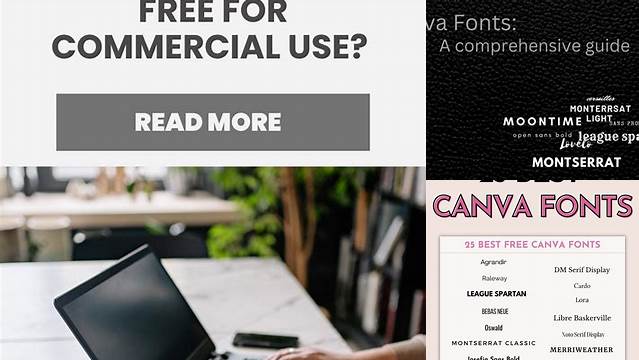
Best Free Canva Fonts: A 2024 Guide
Are you looking for Canva fonts free to use? Well, you've come to the right place! Canva is a fantastic platform for creating stunning visuals, whether it's for social media, presentations, or marketing materials. One of the key elements in making your designs pop is choosing the right fonts. Luckily, Canva offers a vast library of fonts, many of which are available for free. In this guide, we'll dive deep into the world of free Canva fonts, exploring different styles, how to use them effectively, and some hidden gems you might not know about. So, let's get started and unleash your creativity with some amazing typefaces!
Understanding Canva's Font Library
Canva's font library is like a treasure trove, filled with options to suit every design need. It includes a mix of free and premium fonts. The free fonts are readily available to all users, regardless of whether you have a Canva Pro subscription or are using the free version. These Canva free fonts are perfect for anyone just starting out, or for those who want to create professional-looking designs without spending extra money. The library is categorized, making it easier to find what you're looking for, whether it's a sleek sans-serif, an elegant serif, or a playful script font.
Top Free Font Categories in Canva
Let's break down some of the top free font categories available in Canva to help you find the perfect typeface for your projects. Understanding these categories can make your design process much smoother. These free Canva fonts are a great starting point for any project.
Serif fonts are characterized by the small decorative strokes at the end of each letter. They often convey a sense of tradition, authority, and elegance. In Canva, some popular free serif fonts include:
- Lora: A well-balanced serif with a contemporary feel, perfect for body text and headlines.
- Playfair Display: A high-contrast serif that exudes sophistication and is ideal for titles and headings.
- Arvo: A slab-serif font that's clean and readable, making it suitable for both print and digital designs.
These free Canva fonts are excellent choices if you're aiming for a classic or formal look in your designs. Serif fonts are often used in publishing, branding, and websites to create a sense of trust and reliability. When using serif fonts, consider pairing them with a sans-serif font for a balanced and visually appealing design.
Sans-serif fonts, on the other hand, lack the decorative strokes found in serif fonts. They tend to appear more modern, clean, and minimalist. Canva offers a wide range of free sans-serif fonts, such as:
- Open Sans: A versatile and highly readable font that works well in various contexts, from websites to print materials.
- Lato: A sleek and modern sans-serif that's both friendly and professional.
- Roboto: A geometric sans-serif that's widely used on the web and in app interfaces due to its clarity and legibility.
These free Canva fonts are great for projects that require a contemporary and straightforward aesthetic. Sans-serif fonts are commonly used in tech companies, startups, and modern branding to convey a sense of innovation and simplicity. Pairing a sans-serif font with a contrasting serif font can create a dynamic and visually interesting design.
Script Fonts
Script fonts mimic the look of handwriting, adding a personal and artistic touch to your designs. Canva has several beautiful free script fonts to choose from:
- Great Vibes: An elegant and flowing script that's perfect for wedding invitations, greeting cards, and romantic designs.
- Pacifico: A fun and casual script that adds a touch of playfulness to any project.
- Dancing Script: A lively and informal script that's great for adding a personal touch to social media graphics and blog headers.
These free Canva fonts are ideal for projects that need a touch of personality and creativity. Script fonts are often used in branding for small businesses, handmade goods, and creative ventures. However, it's important to use script fonts sparingly, as they can be difficult to read in large blocks of text. Pairing a script font with a simple sans-serif font can create a balanced and visually appealing design.
Display Fonts
Display fonts are designed to grab attention and make a statement. They often have unique and unconventional designs, making them perfect for headlines, posters, and branding. Canva offers a variety of free display fonts, including:
- Bebas Neue: A tall and condensed sans-serif that's perfect for headlines and banners.
- Oswald: A condensed sans-serif that's both modern and impactful.
So, there you have it – a comprehensive guide to Canva fonts free to use! With its extensive library of free fonts, Canva makes it easy to create stunning designs without breaking the bank. By understanding the different font categories, mastering the art of font pairing, and paying attention to factors like size, placement, and color, you can unleash your creativity and create visually appealing designs that captivate your audience. Whether you're designing social media graphics, presentations, or marketing materials, the free Canva fonts are a valuable resource for bringing your ideas to life. So go ahead, explore the library, experiment with different fonts, and create something amazing! And remember, the best design is one that effectively communicates your message and resonates with your audience. So, choose your fonts wisely and let your creativity shine! These Canva free fonts are waiting for you to discover them.